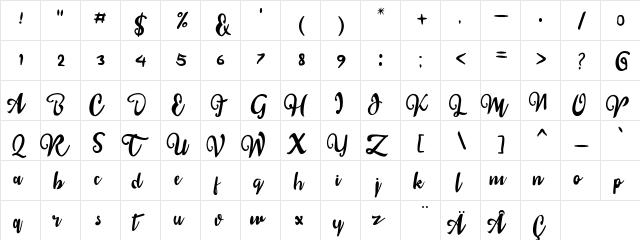
sail tortuga Regular
Design Context for sail tortuga Typeface
sail tortuga is a composed and adaptable typeface that performs quietly and consistently across a wide range of design contexts.